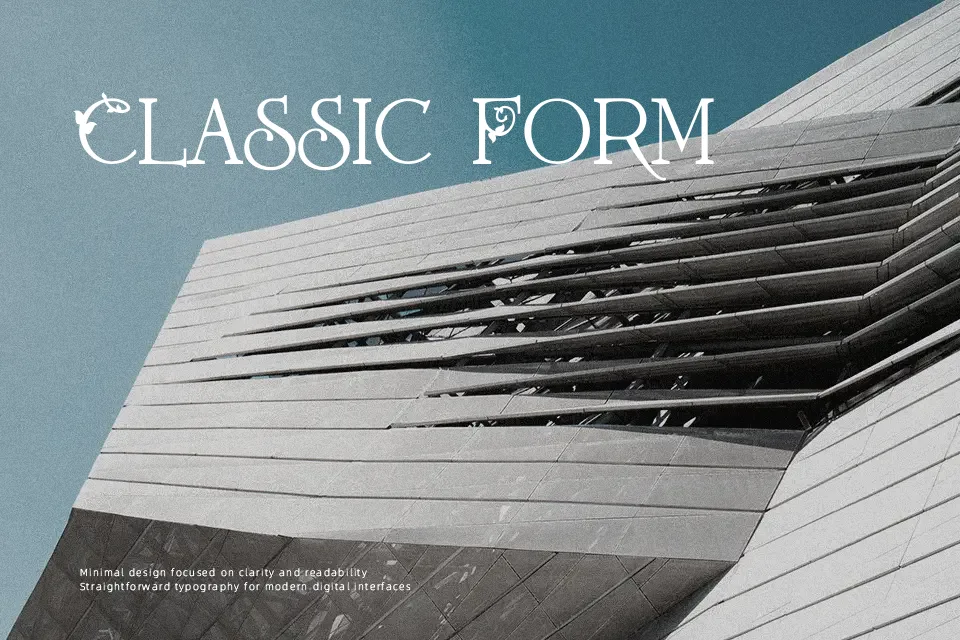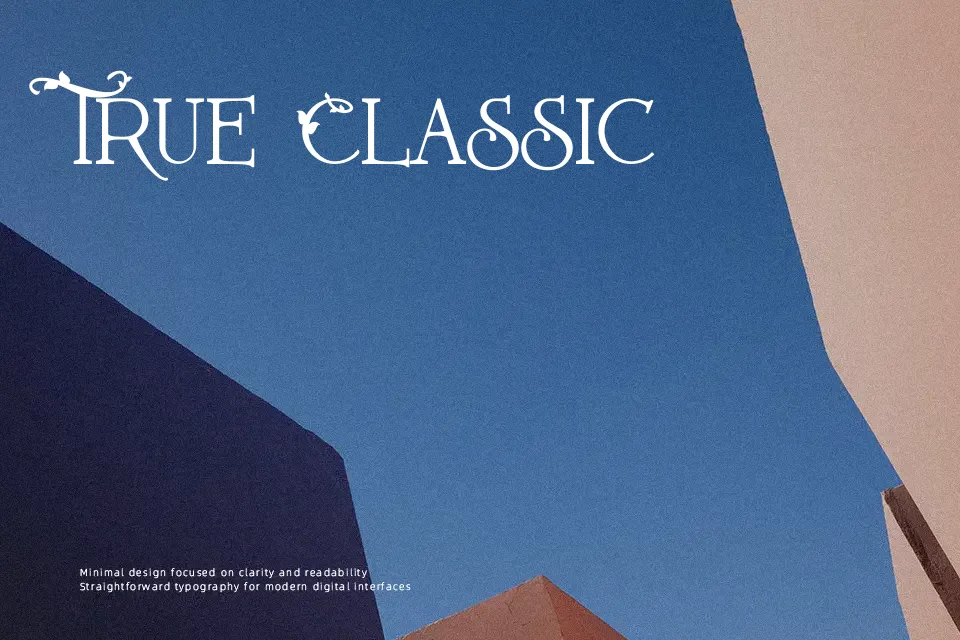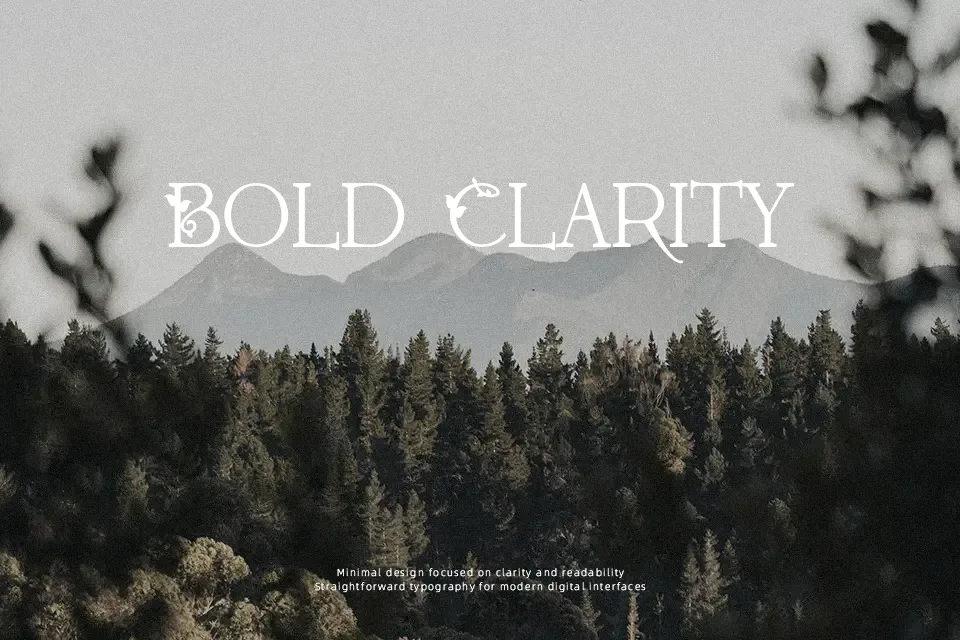
Rostley Font
Rostley Font presents an ornamental serif structure defined by contrasting stroke weights and intricate botanical detailing. The letterforms exhibit traditional elegance, utilizing refined proportions that balance classic typography with organic, leafy flourishes. Special bracket glyphs transform into stylized floral elements, adding unique decorative complexity. The generous spacing helps maintain clarity in larger headlines, allowing the ornate terminals to breathe visually. However, these same decorative details become less effective at smaller sizes, creating visual clutter and reducing legibility. The intricate nature of this design makes it highly suitable for prominent display usage like premium boutique branding and romantic event invitations, but it remains a poor choice for dense paragraphs.
luxury cosmetic packaging
romantic wedding invitations
boutique brand identities
vintage apparel graphics
spreadsheet data
Perfect for branding, invitation, and logo, with a classic and decorative style.